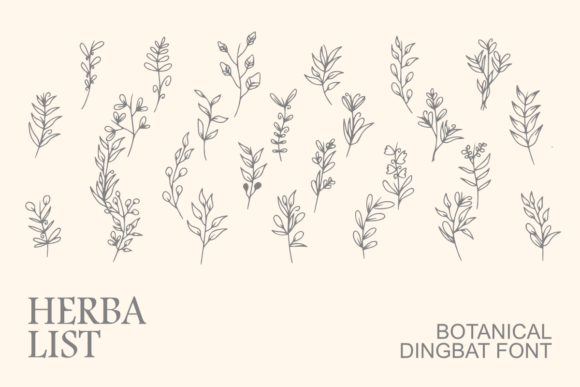
Introducing Herbalist Font, the perfect font for cake topper cricut projects! Created by DDY creative, this captivating dingbats font will add a touch of nature and whimsy to your designs. With its hand-drawn style and intricate details, Herbalist is sure to leave a lasting impression.
Herbalist Font is a treasure trove of botanical elements, featuring foliage, wildflowers, branches, and wild plants. Each character is beautifully crafted, allowing you to create unique and eye-catching designs effortlessly. Whether you're designing a cake topper, crafting invitations, or creating stunning logos, this font will elevate your projects to the next level.
What sets Herbalist Font apart is its versatility. It complements a wide range of themes, from rustic and bohemian to elegant and modern. Its organic and playful aesthetic will captivate your audience and evoke a sense of joy and wonder. Let your creativity run wild as you explore the endless possibilities this font has to offer.
But Herbalist Font isn't just visually stunning; it's also incredibly user-friendly. With its easy-to-use interface, you'll have no trouble navigating through the extensive collection of characters and symbols. Whether you're a seasoned designer or just starting out, this font is accessible to all skill levels.
Imagine the excitement on your customers' faces when they see the beautifully crafted cake toppers or invitations you've designed using Herbalist Font. Its unique style will make your creations stand out from the crowd, leaving a lasting impression on anyone who sees them.